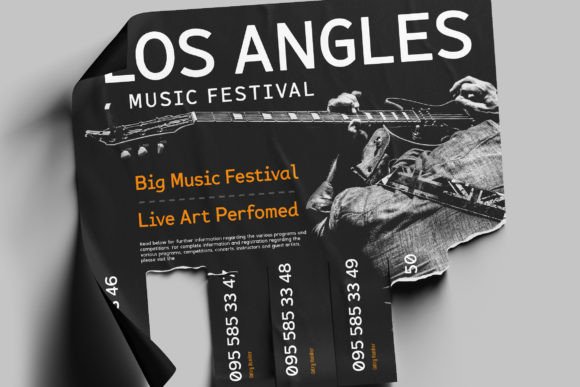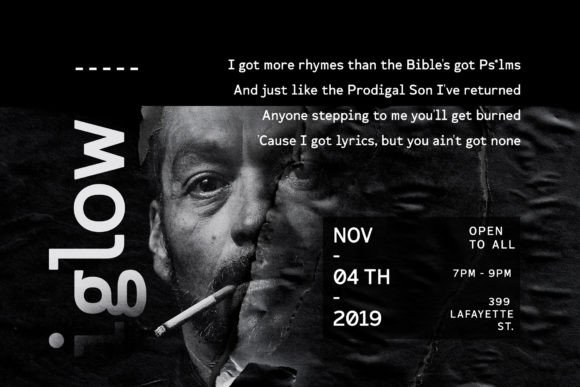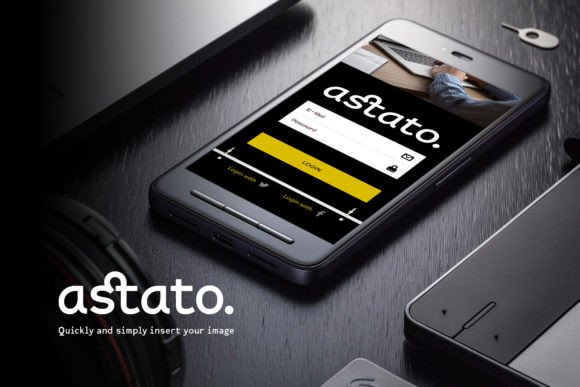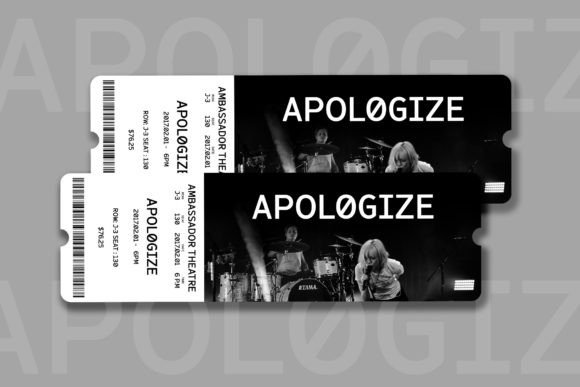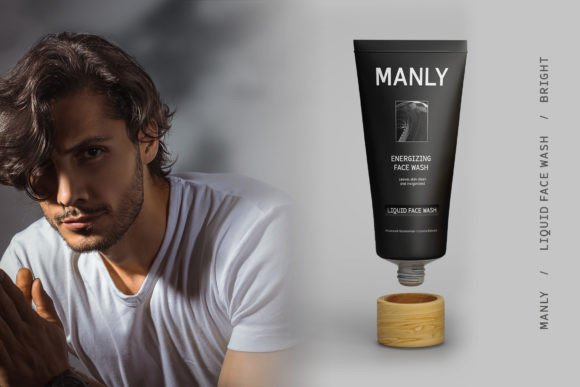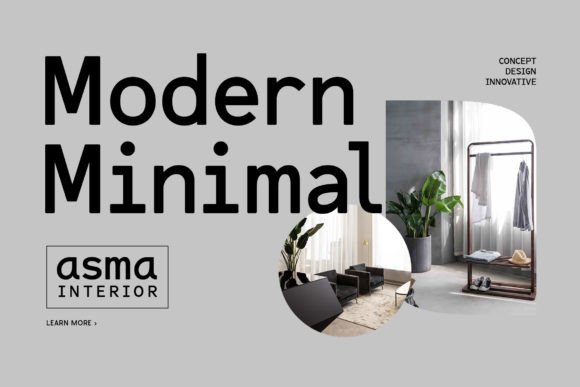
Introduction to Maziglow Font
Have you ever stared at a blank canvas, waiting for that perfect font to spark your creativity? It’s a moment we’ve all experienced as designers, and it’s a feeling that’s hard to describe – a mix of excitement and frustration, all rolled into one. But what if I told you that there’s a font out there that can change all that? Welcome to the world of Maziglow Font, a modern monospace sans serif font that’s about to revolutionize your design projects.
Maziglow Font is more than just a design resource – it’s a key to unlocking your full creative potential. With its high-quality design and transparent background, this font is perfect for any creative project, from classic logo and branding to magazine and ticket design. Whether you’re a seasoned designer or just starting out, Maziglow Font is sure to become your go-to choice for all your design needs.
Key Features of Maziglow Font
- Unique, high-quality design resource ideal for creative projects
- Supports a wide range of languages, making it suitable for multilingual creative projects
- Perfect for designers, artists, and writers seeking a distinctive and elegant font for their work
Honest Review: Maziglow Font
I recently stumbled upon the Maziglow Font, a high-quality design resource that caught my attention with its unique and elegant style. As a designer, I appreciate fonts that can elevate a creative project to the next level, and this one does just that.
Here are some of the features that work well with the Maziglow Font: ✨
- Beautifully crafted letters with a mix of modern and vintage elements.
However, there are some limitations to consider: ⚠️
- The font may not be suitable for all design styles, particularly those with bold or dramatic flair.
Overall, I’m impressed with the Maziglow Font’s quality and versatility. It’s a great addition to any designer’s toolkit, especially for those working on creative projects that require a touch of sophistication and elegance.
Maziglow Font is ideal for:
- Graphic design projects requiring a unique font.
- Branding and logo design.
- Print and digital marketing materials.
Alternatives to Maziglow Font
Glacial Indifference Font
The Glacial Indifference Font is a high-quality, modern sans-serif typeface ideal for creative projects requiring a clean and professional design. It’s available for free download with a transparent background, making it suitable for use on various design resources. When to use: Use Glacial Indifference for digital products, web applications, or presentations that demand a sleek and modern aesthetic. It compares to Maziglow Font in terms of its clean design, but it lacks the Maziglow Font’s unique, hand-drawn feel.
The Lato Font is a popular, high-quality sans-serif typeface that offers a modern and elegant design. It’s available for free download and features a transparent background, making it suitable for various design resources. When to use: Use Lato Font for creative projects requiring a clean and sophisticated look, such as branding, packaging, or editorial design. It compares to Maziglow Font in terms of its clean design, but it lacks the Maziglow Font’s playful, hand-drawn feel.
The Montserrat Font is a high-quality, urban sans-serif typeface inspired by the streets of Buenos Aires. It’s available for free download with a transparent background, making it suitable for various design resources. When to use: Use Montserrat Font for creative projects requiring a bold and edgy design, such as urban branding, street art, or graffiti-inspired designs. It compares to Maziglow Font in terms of its bold design, but it lacks the Maziglow Font’s unique, hand-drawn feel.